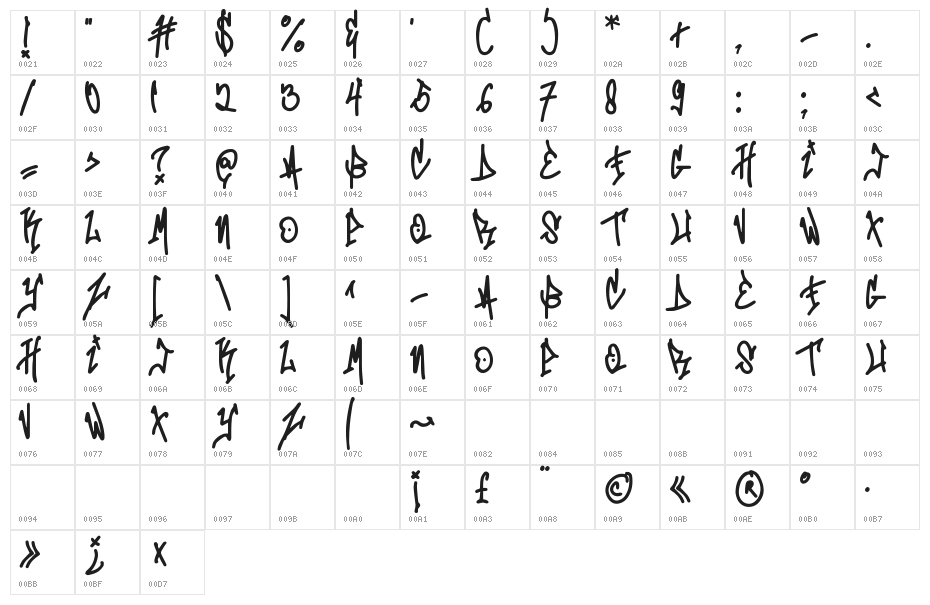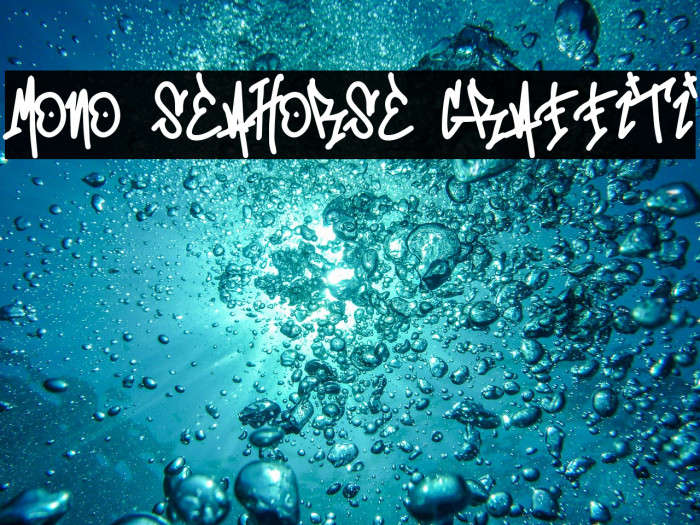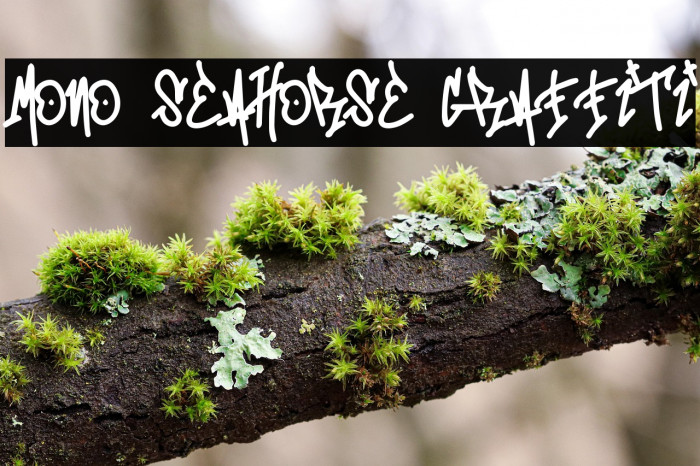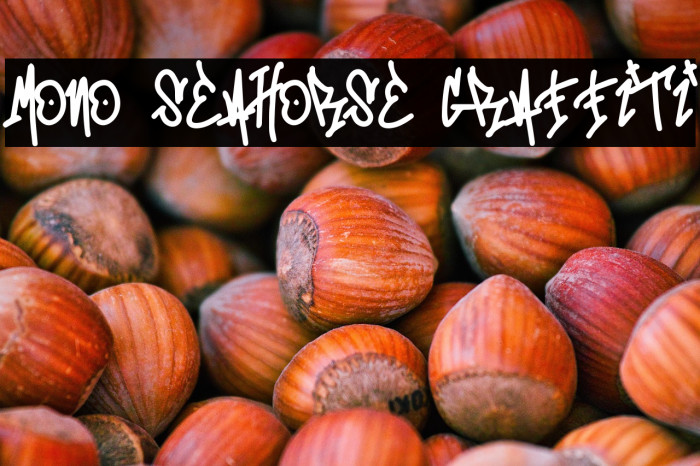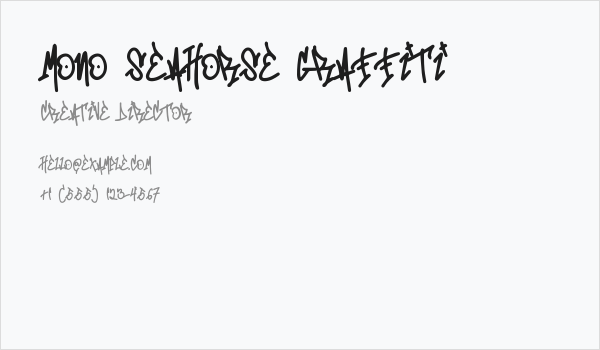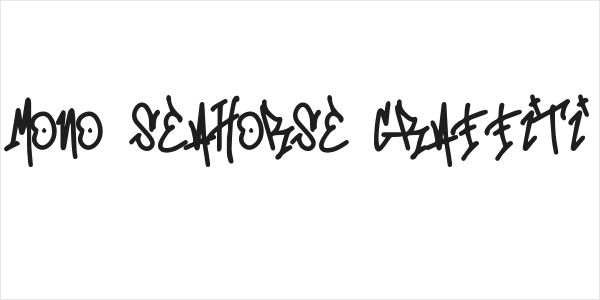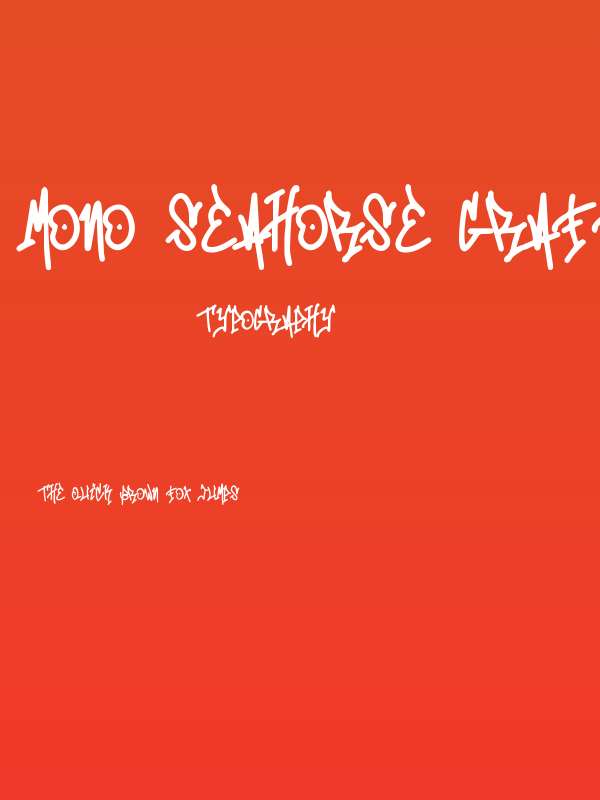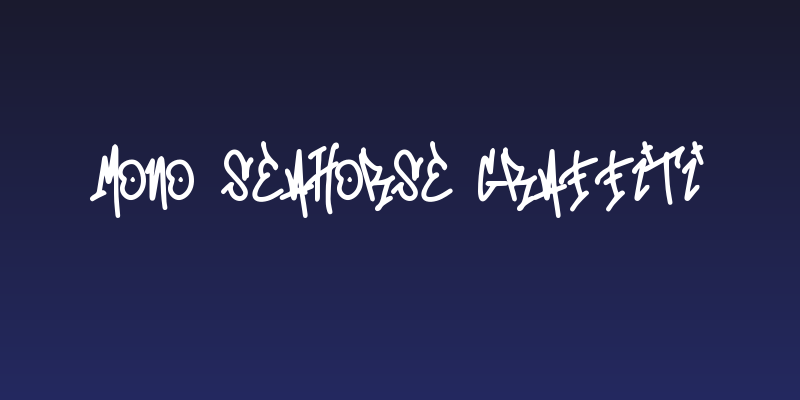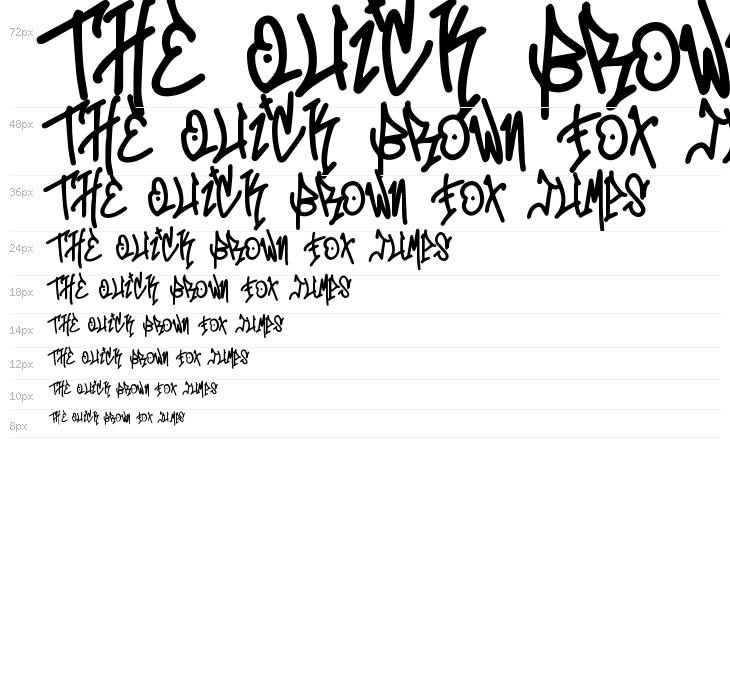
Mono Seahorse Graffiti Font
Mono Seahorse Graffiti Description
This font exudes a dynamic and urban vibe, reminiscent of street art and graffiti culture. The characters are bold and expressive, with a hand-drawn appearance that suggests movement and spontaneity. Each letter is uniquely styled, featuring sharp angles and exaggerated curves that create a sense of energy and rebellion. The numbers and special characters maintain this aesthetic, contributing to a cohesive and visually striking typeface. The overall impression is one of creativity and individuality, making it ideal for projects that aim to capture attention and convey a sense of modernity and edge.
| Overall Style | Modern, Urban, Graffiti |
| Proposed Projects | Perfect for urban-themed designs, streetwear branding, music album covers, and event posters. |